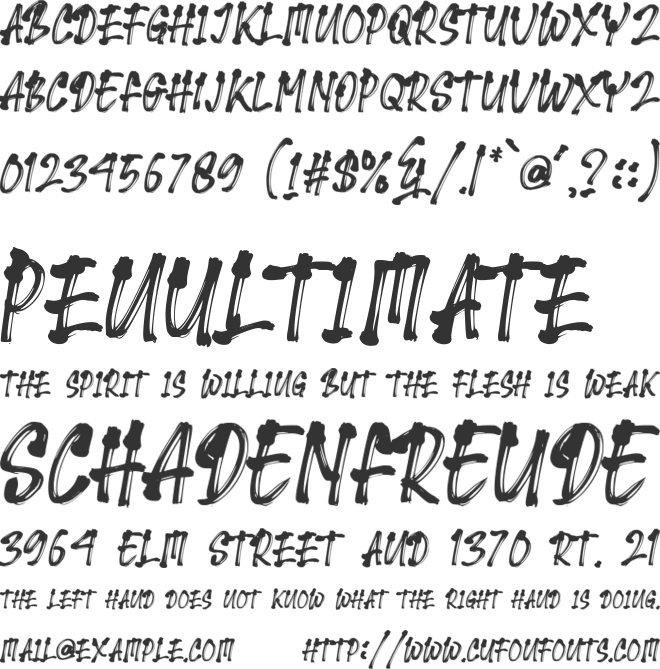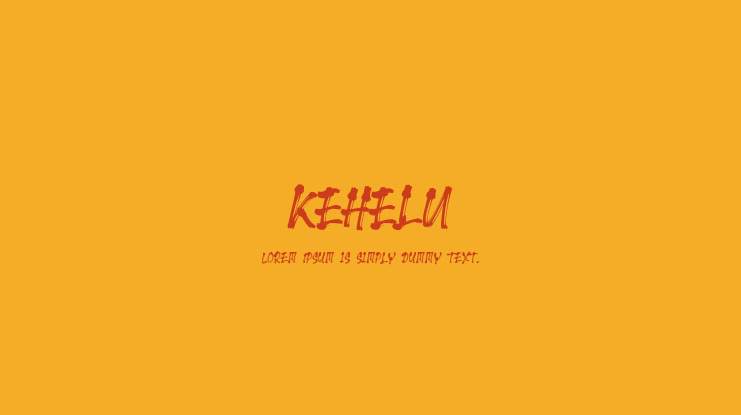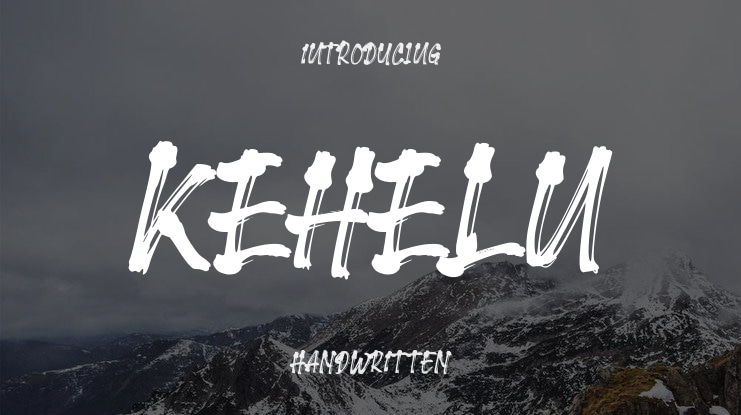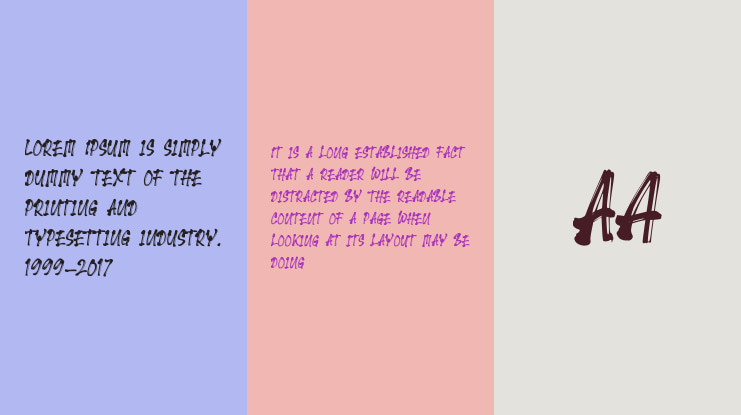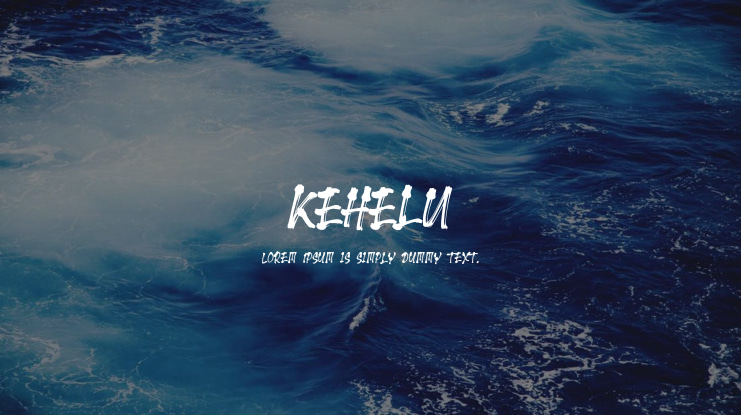
Keheln Font
Keheln – Natural Brush Font
Keheln is a natural brush font created to add a creative and energetic flair to your projects. Featuring dynamic strokes and an authentic brush texture, this font is an excellent choice for diverse design tasks including posters, branding, packaging, and other creative works.
It provides a relaxed yet professional vibe, making it ideal for crafting expressive and bold designs. Keheln is the perfect font to help your designs stand out and attract attention.